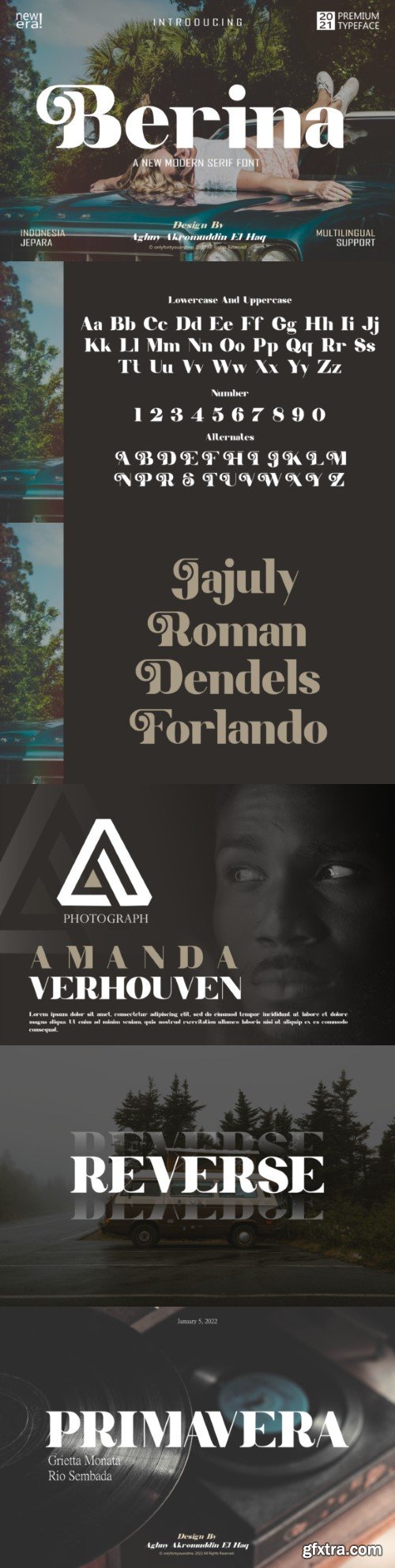
伯娜字体
Berina is a modern and luxurious serif font. It is defined by smooth curves and is perfect for fashion branding or editorial designs. This font is PUA encoded which means you can access all glyphs and swashes with ease!